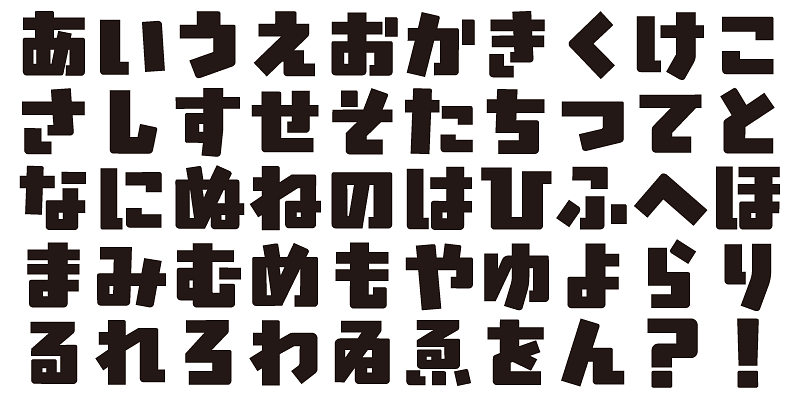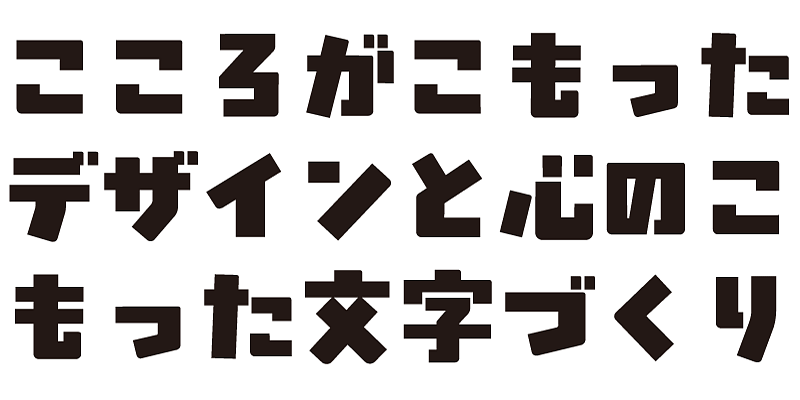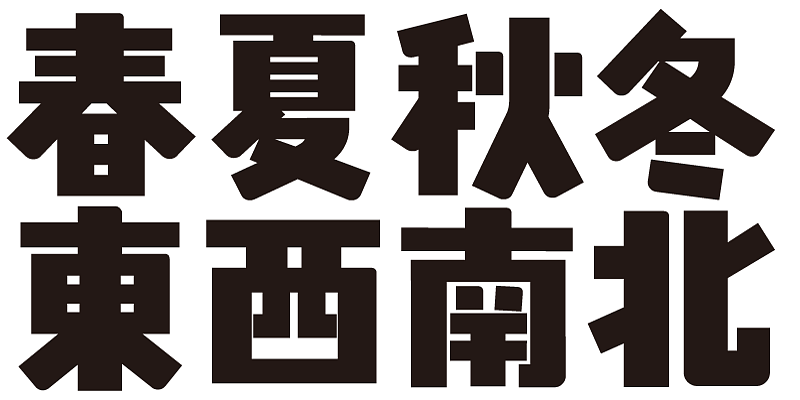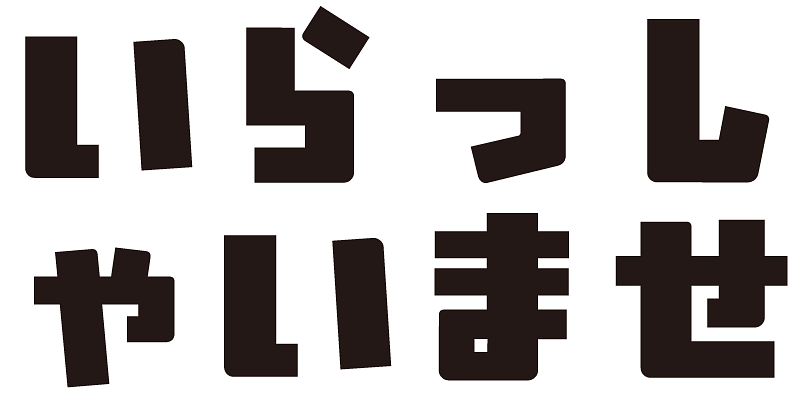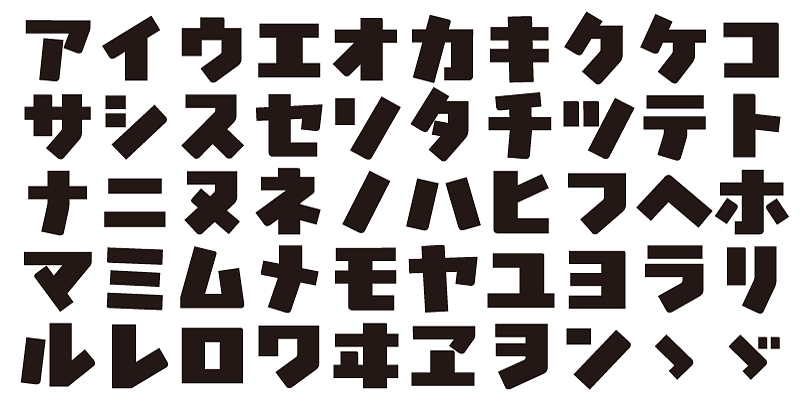
This typeface has a robust and energetic feel, with a sense of strength and gentleness, like solid rock.
This font includes 1,000 kanji characters, as well as hiragana, katakana, alphanumeric characters, and punctuation marks.